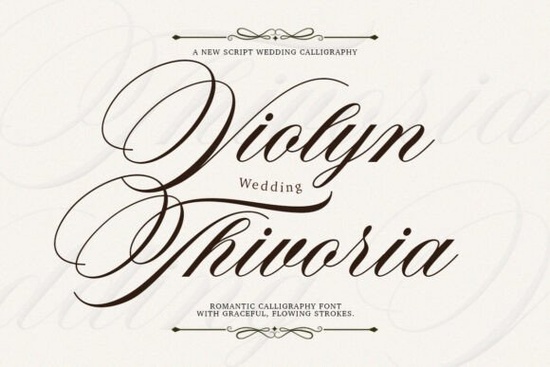
Choosing the right typeface for wedding stationery or luxury branding can make or break the overall feel of your design. Violyn Wedding Thivoria is a calligraphy font that blends romantic, flowing strokes with a polished, modern finish making it a strong option for designers who need elegance without looking outdated. If you work on invitations, logos, or premium packaging, this typeface is worth a closer look.
What Makes Violyn Wedding Thivoria Different from Other Calligraphy Fonts?
There are thousands of calligraphy-style typefaces available, so what sets this one apart? The answer is in the details. Every curve and stroke in Violyn Wedding Thivoria was crafted to feel both soft and intentional. The letterforms flow naturally, mimicking the rhythm of hand-lettered calligraphy without looking forced or overly decorative.
Unlike some script fonts that lean too far in one direction either too casual or too stiff this typeface strikes a middle ground. It has a premium handcrafted feel that works in professional design contexts while still carrying warmth and personality. That balance is hard to find, especially in fonts designed specifically for wedding and luxury projects.
Which Design Projects Work Best with This Font?
Violyn Wedding Thivoria was built with specific use cases in mind. Here are some of the most common projects where it fits naturally:
- Wedding invitations and save-the-dates the flowing letterforms create a romantic, celebratory tone
- Luxury brand logos ideal for boutiques, jewelry brands, and high-end beauty products
- Premium packaging gives product labels and boxes a refined, upscale look
- Fashion editorials and lookbooks adds a sophisticated typographic accent to layouts
- Greeting cards and event stationery perfect for anniversaries, galas, and formal events
- Print-on-demand products mugs, tote bags, and wall art that target the wedding or gift market
If you sell on platforms like Etsy or run a small print-on-demand shop, pairing this font with the right layout can help your products stand out in a crowded market. For designers who also need signature-style script fonts for complementary designs, Violyn Wedding Thivoria pairs well with simpler typefaces.
How Do the Stylistic Alternates and Ligatures Work?
One of the most useful features of this typeface is its collection of stylistic alternates and custom ligatures. If you're not familiar with these terms:
- Stylistic alternates are different versions of the same letter. For example, a lowercase "h" might have two or three design variations you can swap in.
- Custom ligatures are special character pairs like "th" or "tt" that connect in a more natural, calligraphic way.
These features matter because they let you fine-tune your typography. Instead of every word looking identical, you can adjust individual characters to create a more organic, hand-lettered appearance. This is especially helpful when designing logos or monograms where every detail counts.
Who Should Consider Using This Typeface?
This font is a practical choice for a range of creatives:
- Graphic designers working on client projects that require a romantic or luxury aesthetic
- Wedding stationery businesses that need a reliable, beautiful calligraphy option
- Small business owners creating branding materials for upscale products
- Crafters and hobbyists making personalized gifts, cards, or home décor
- Print-on-demand sellers looking for fonts that appeal to the bridal and gifting audience
For those who prefer a handwriting-style font for everyday projects, Violyn Wedding Thivoria is more specialized it's best reserved for designs where elegance and romance are the priority. If you need something bolder for a different mood, exploring options like the Predator typeface might be more fitting.
Does It Pair Well with Other Fonts?
Pairing script fonts with the right complementary typeface is key to readable, balanced designs. Violyn Wedding Thivoria works well alongside clean sans-serif fonts for body text, keeping the focus on the decorative script for headings and accents.
You could also combine it with vintage-inspired typefaces if you're going for a classic, heritage look. The goal is to keep contrast let the calligraphy shine as the hero font while supporting it with simpler, more legible text.